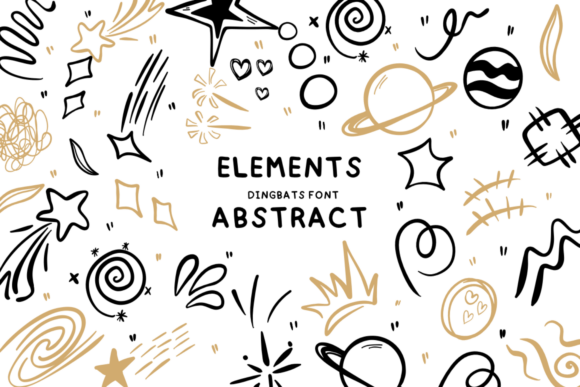
Introduction to Elements Abstract Font
Elements Abstract is a dingbats font with an abstract theme.
This font can enhance your creative projects such as wedding invitations, DIY, crafts, decorations, logos, and many other creative ideas .
Why Choose Elements Abstract Font?
Elements Abstract Font offers exceptional quality and versatility, making it a valuable addition to your design toolkit. Whether you’re creating for personal projects or commercial use, Elements Abstract Font delivers professional results.